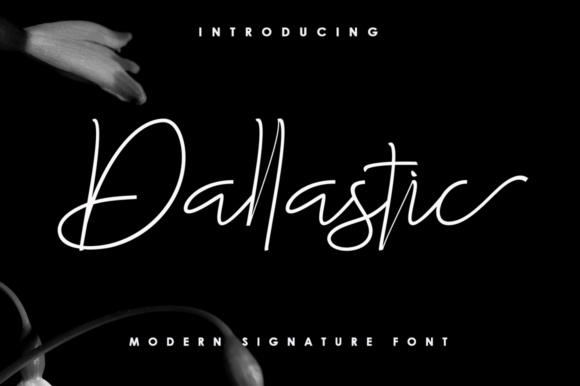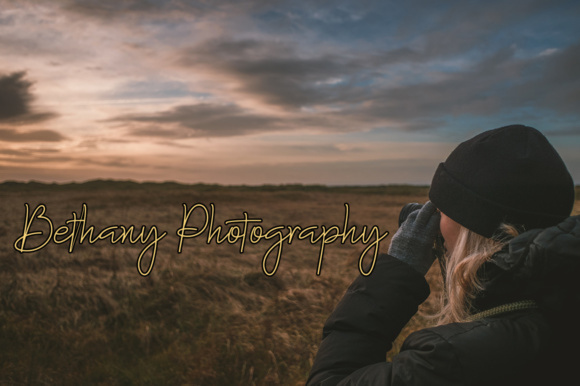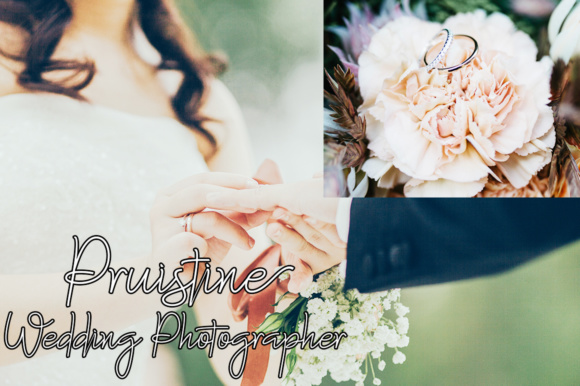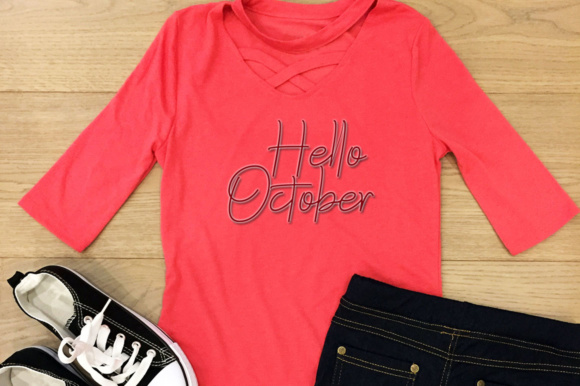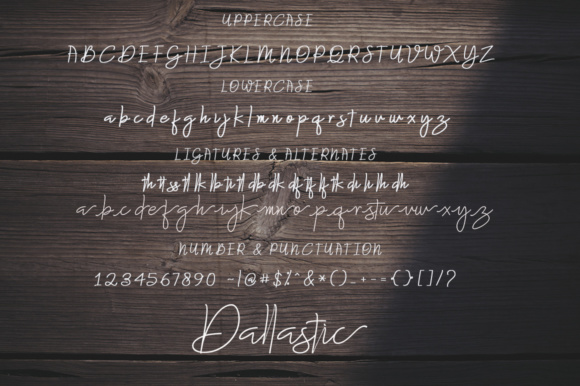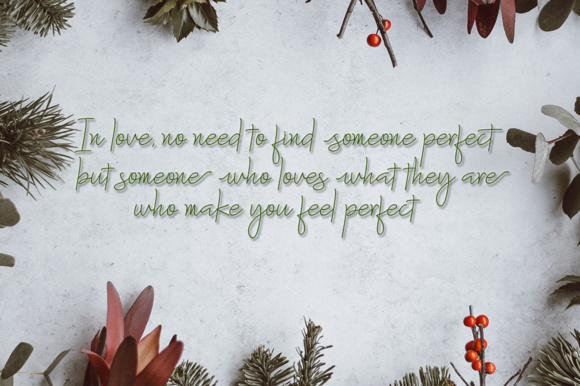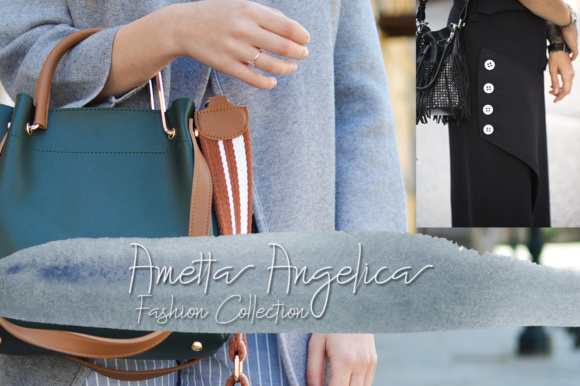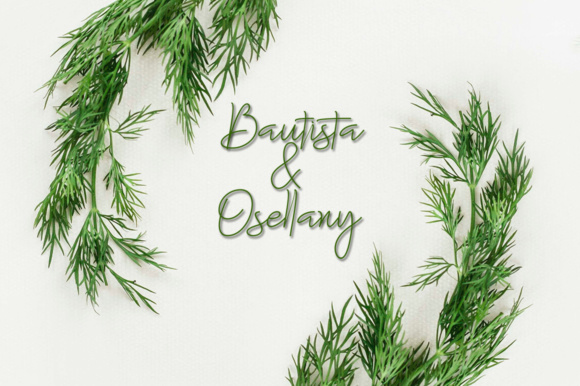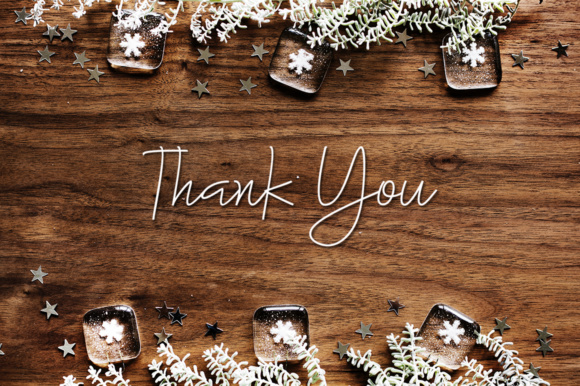
About Dallastic Script Font
The Dallastic is a beautiful legible script. Itβs ideal for a wide range of projects and is a great way to add a vintage yet clean style to your work.